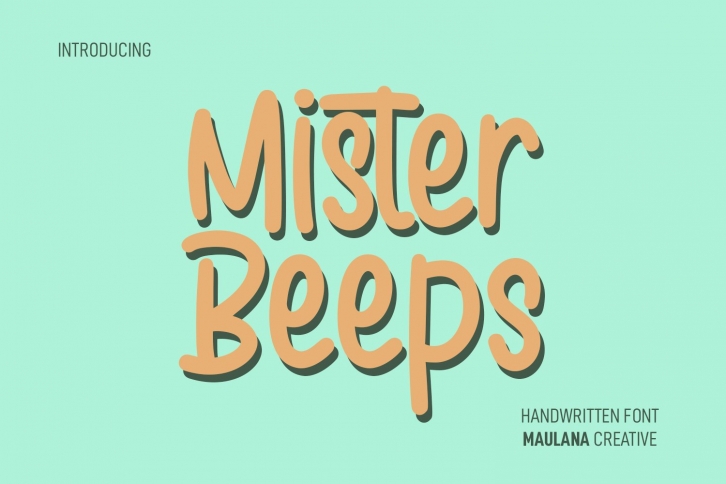
Mister Beeps Handwritten is a gorgeous font that was realeased on September 9, 2022. The font can be used in many style contexts and design environments. Perfect for invitations, magazines, websites, logos, and more! It was designed by Maulana Creative and the file size is 19.48 MB. Thanks for checking out this font!